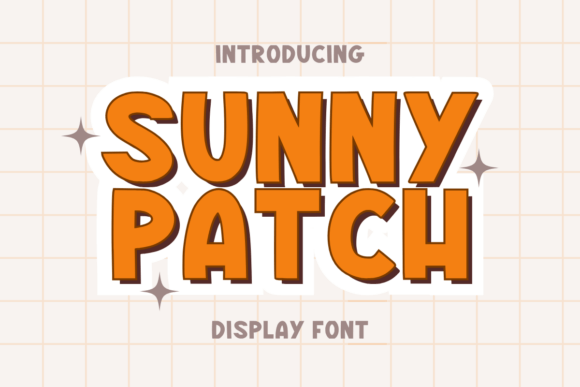
Sunny Patch Font: The Perfect Addition to Your Creative Projects
Are you a crafter, designer, or maker looking for a fun and whimsical font to add to your creative projects? Look no further than the Sunny Patch font! This adorable font is perfect for a variety of uses, including crafts, planners, KDP, stickers, greeting cards, and more. In this article, we’ll take a closer look at the Sunny Patch font, its features, and how you can use it to take your projects to the next level.
What is Sunny Patch Font?
Sunny Patch is a digital font designed with a playful and friendly style in mind. Its cute and whimsical design makes it perfect for a wide range of creative projects, from DIY crafts to professional design work. The font is highly versatile and can be used for both personal and commercial projects.
- Font Style: Sunny Patch is a sans-serif font with a rounded and friendly design.
- Use Cases: Crafts, planners, KDP, stickers, greeting cards, Cricut, sublimation, and more.
- Design Style: Whimsical, playful, and cute.
Uses for Sunny Patch Font
The Sunny Patch font is incredibly versatile and can be used for a wide range of projects. Here are some ideas to get you started:
- Crafts: Use Sunny Patch to add a personal touch to your craft projects, such as scrapbooking, card making, and DIY decor.
- Planners: Add a fun and playful touch to your planners and journals with Sunny Patch.
- KDP: Use Sunny Patch to create eye-catching book covers, journals, and planners for Kindle Direct Publishing.
- Stickers: Design adorable stickers with Sunny Patch for use in planners, journals, and crafts.
- Greeting Cards: Create personalized greeting cards with Sunny Patch for special occasions.
- Cricut: Use Sunny Patch with your Cricut machine to create custom vinyl signs, decals, and more.
- Sublimation: Design sublimation prints with Sunny Patch for use on mugs, t-shirts, and other products.
Benefits of Using Sunny Patch Font
So why choose Sunny Patch font for your projects? Here are some benefits to consider:
- Unique Design: Sunny Patch has a unique and recognizable design that will set your projects apart.
- Easy to Read: The font is highly legible, making it perfect for use in a variety of projects.
- Versatile: Sunny Patch can be used for a wide range of projects, from crafts to professional design work.
- Fun and Playful: The font’s playful design adds a fun and whimsical touch to any project.
Tips for Using Sunny Patch Font
Here are some tips for getting the most out of Sunny Patch font:
- Experiment with Sizes: Try using Sunny Patch in different sizes to add visual interest to your projects.
- Combine with Other Fonts: Pair Sunny Patch with other fonts to create a unique and eye-catching design.
- Use in Color: Take advantage of Sunny Patch’s playful design by using it in color.
- Pay Attention to Kerning: Make sure to adjust the kerning to ensure that your text looks professional and polished.
In conclusion, Sunny Patch font is a fun and whimsical font that’s perfect for a wide range of creative projects. Its cute and friendly design makes it ideal for crafters, designers, and makers. With its versatility, ease of use, and unique design, Sunny Patch is sure to become a favorite font in your collection.